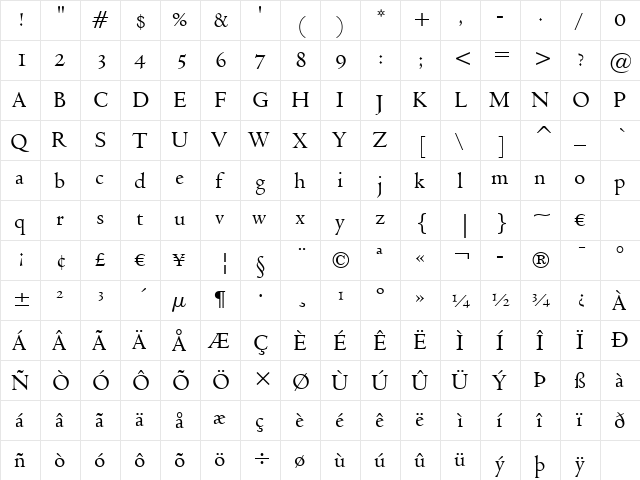
Venetian301 Dm BT Demi Font Preview
Venetian301 Dm BT Demi
Design Context for Venetian301 Dm BT Typeface
Venetian301 Dm BT takes a measured approach to typography — its balanced proportions and neutral character make it a reliable workhorse for both digital and print work.